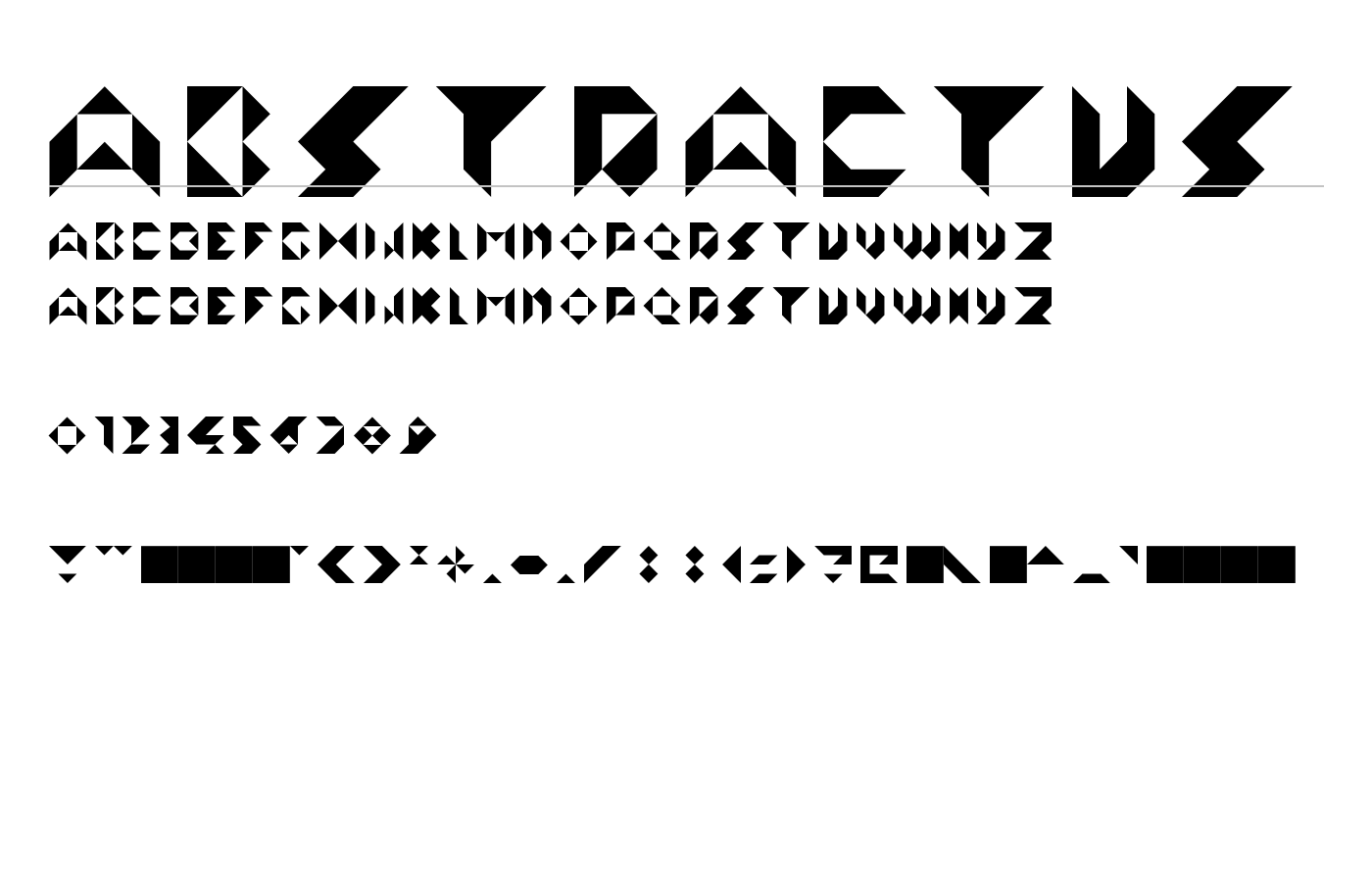
Abstractus is a bold, geometric display font with a futuristic, angular design that creates a striking and modern look. Its sharp, block-like shapes and high contrast between solid black areas and white spaces give it an abstract, almost puzzle-like character, making it perfect for eye-catching headlines, logos, and creative branding projects. This font brings a unique, edgy vibe that suits tech, gaming, and avant-garde design themes.
Abstractus Font
About Abstractus Font